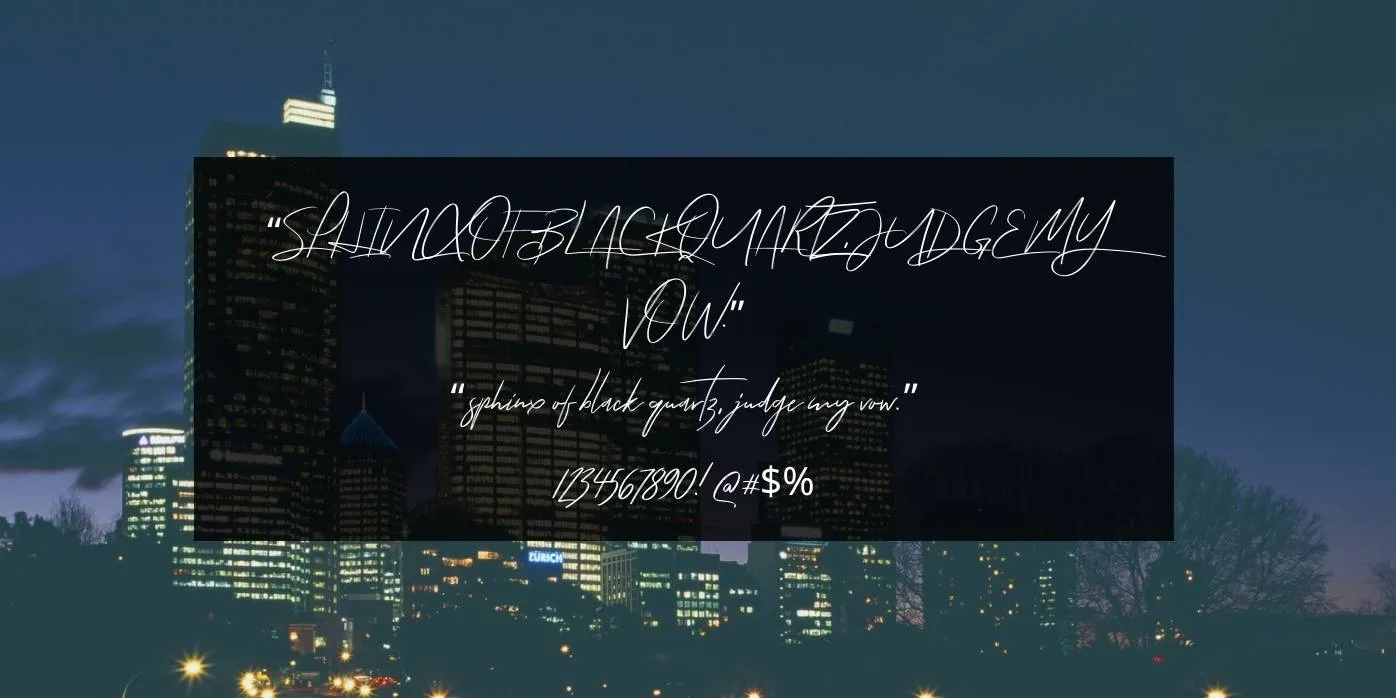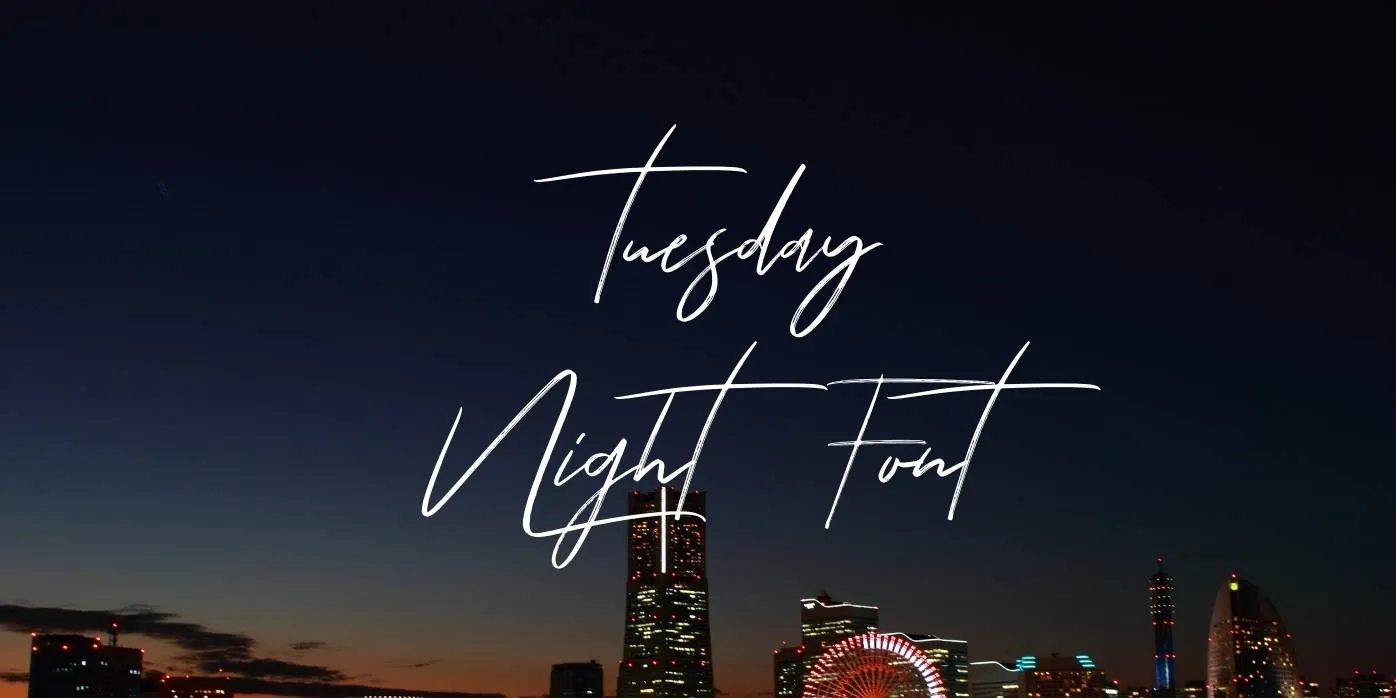
Tuesday Night Font
Tuesday Night Font is a very famous typeface that is known by the name Tuesday Night Font. This attractive font family was created by Font Forestry. This classy font family contains a total of 6 weights, ranging from light to heavy, and it supports both Latin and Cyrillic languages. This gorgeous font family is very versatile and can be used for a variety of purposes.
It is perfect for headlines, logos, branding, and web design. Tuesday Night Typeface is also great for advertising and packaging. Its copy and paste function is perfect for different text designs. Another similar font which is hello sunshine font is perfect for different designs.
It is very famous and popular because of its unique and stylish look. This tremendous font family is very easy to use and it comes with a lot of great features. If you are looking for a typeface that is both stylish and versatile, then the Tuesday Night Typeface family is the perfect choice for you.  It will also provide the facility of generator tools.